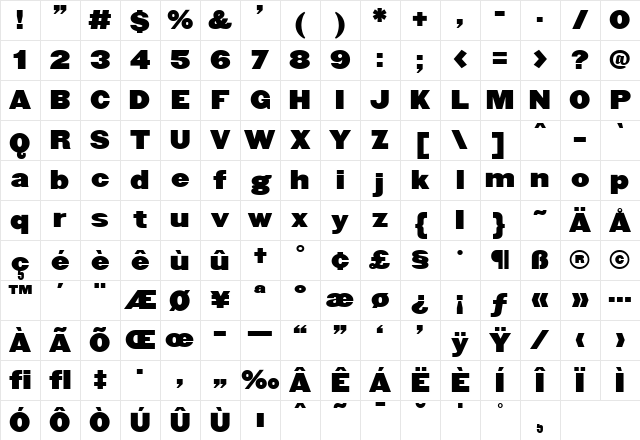
SI-Heavyweight A
Design Context for SI-Heavyweight
SI-Heavyweight is a composed and adaptable typeface that performs quietly and consistently across a wide range of design contexts.